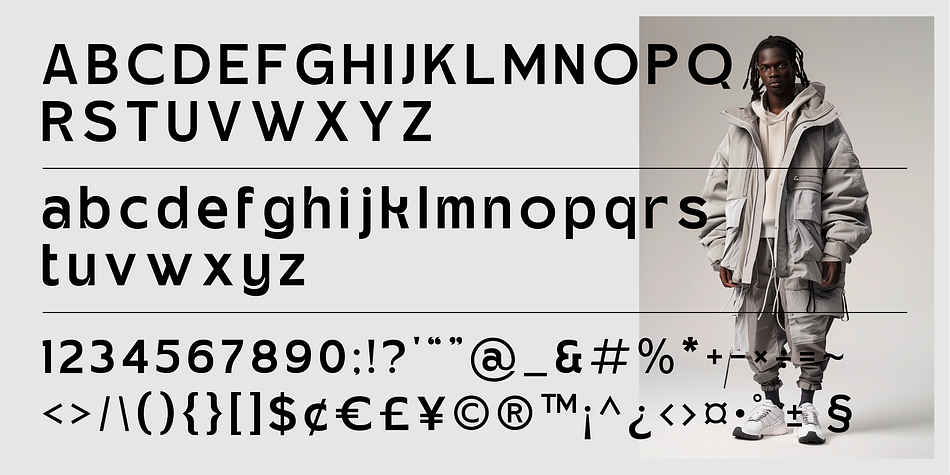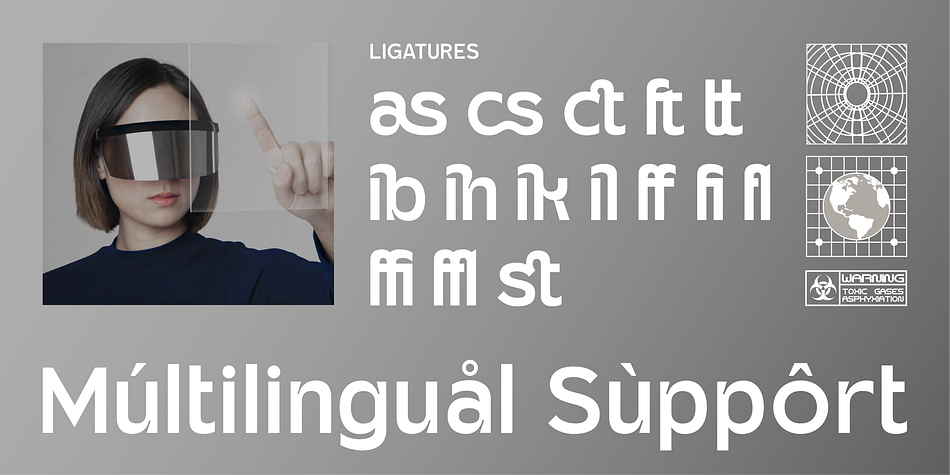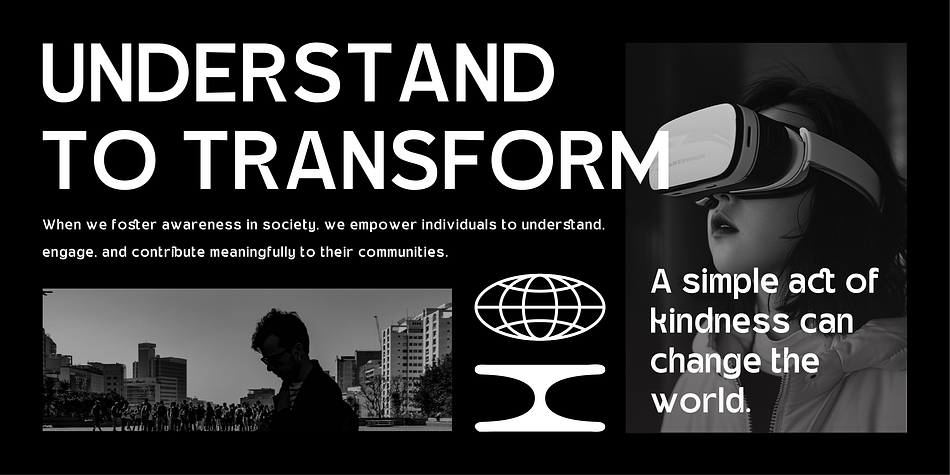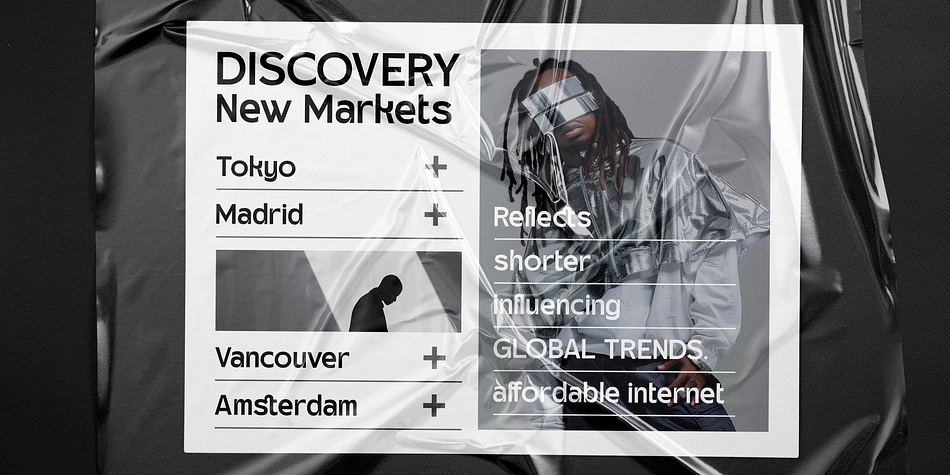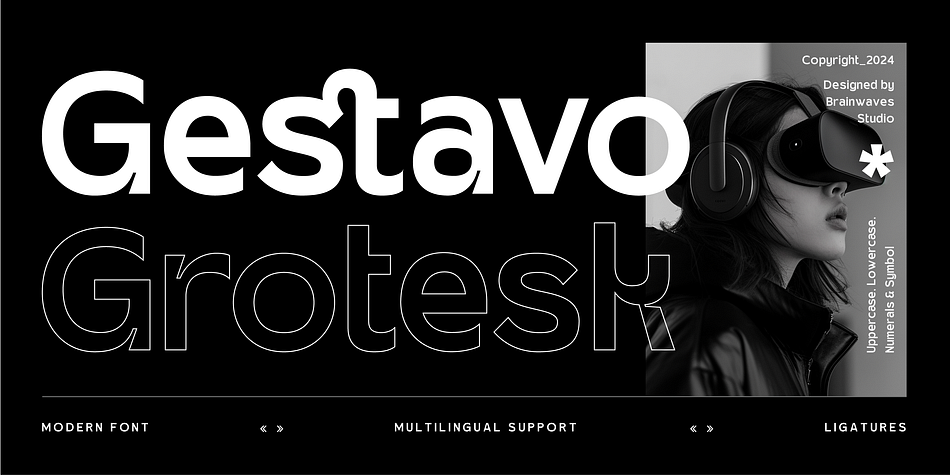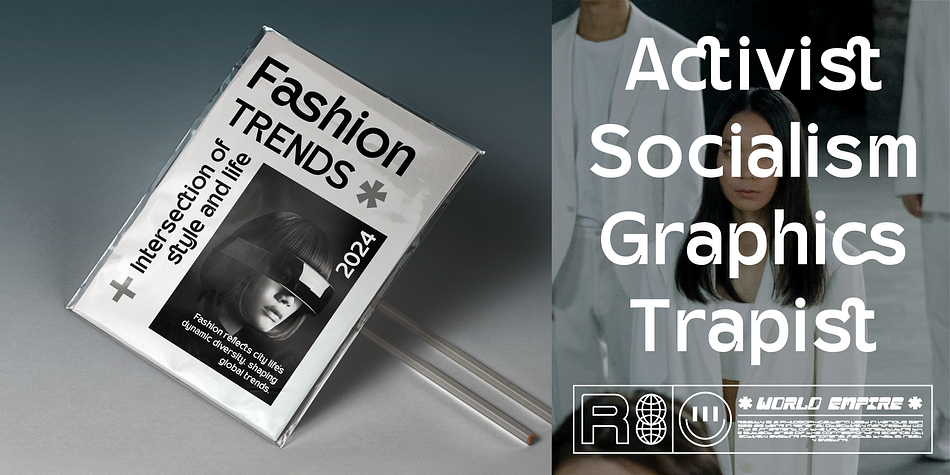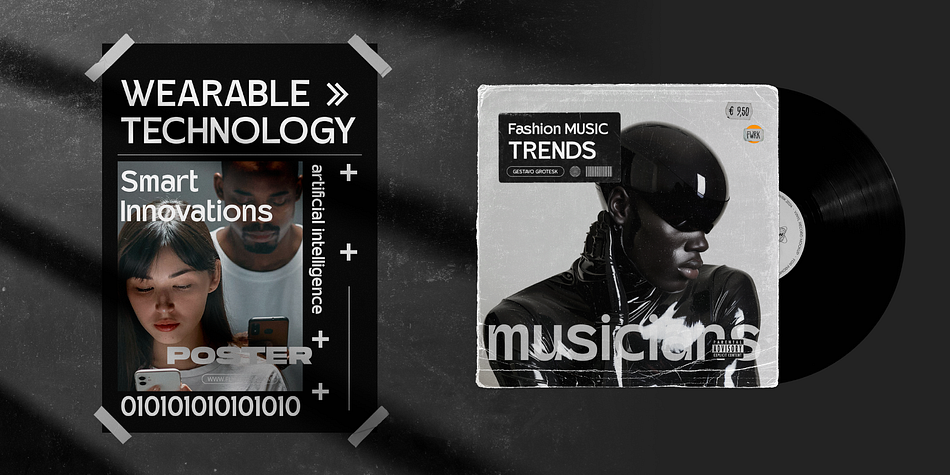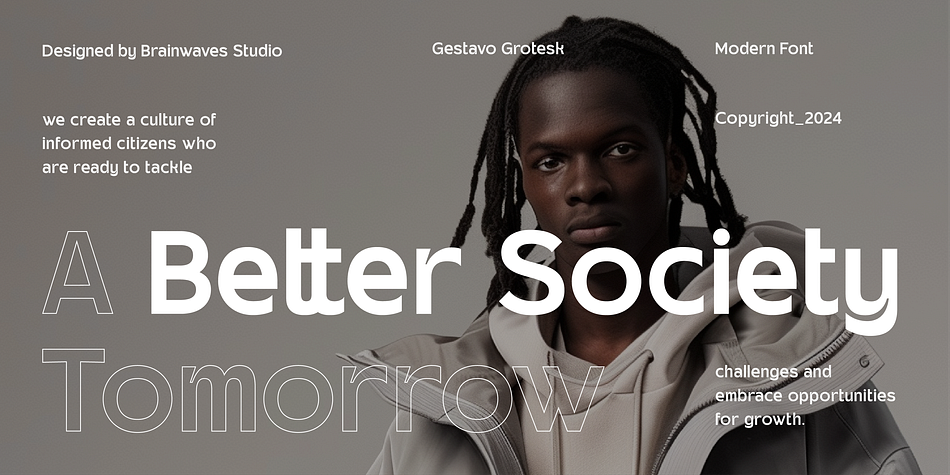
Gestavo Grotesk
Designed by Anggil Sukma, Gestavo Grotesk is a sans serif font family. This typeface has two styles and was published by Brainwaves Studio.
Gestavo Grotesk Sans Serif font combines minimalist simplicity with a contemporary edge. Its sleek lines and well-proportioned letters create a clear and efficient look that’s perfect for modern design. With its clean appearance and understated elegance, Gestavo Grotesk ensures readability and a touch of refinement, making it suitable for various design applications. Whether for headlines or text, this font delivers a timeless style that blends versatility with a strong visual impact.